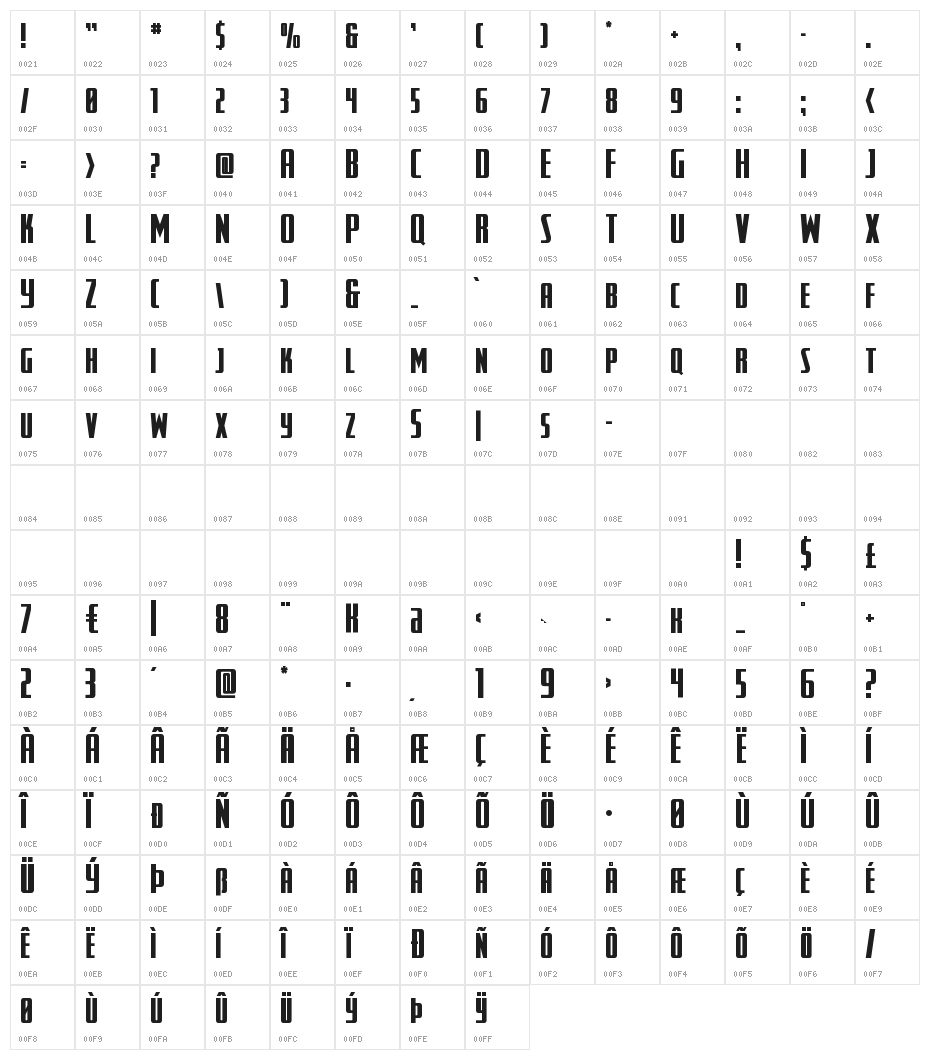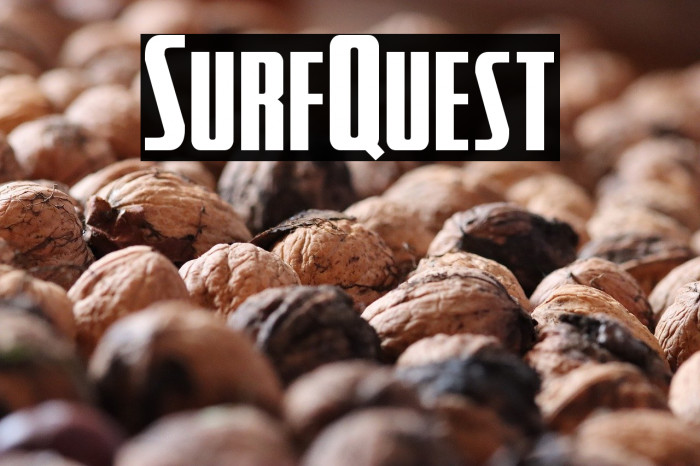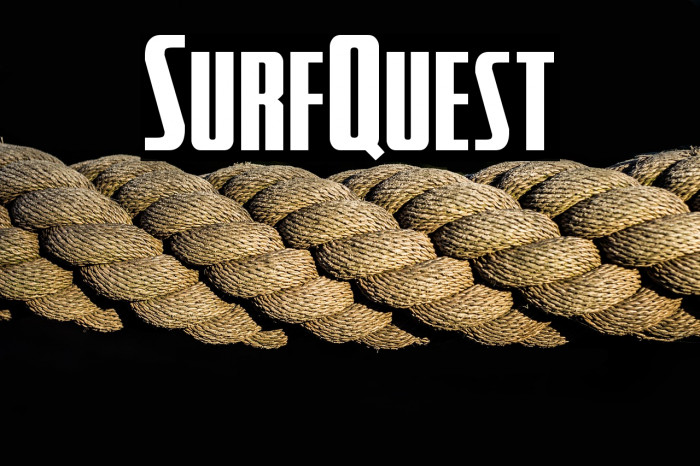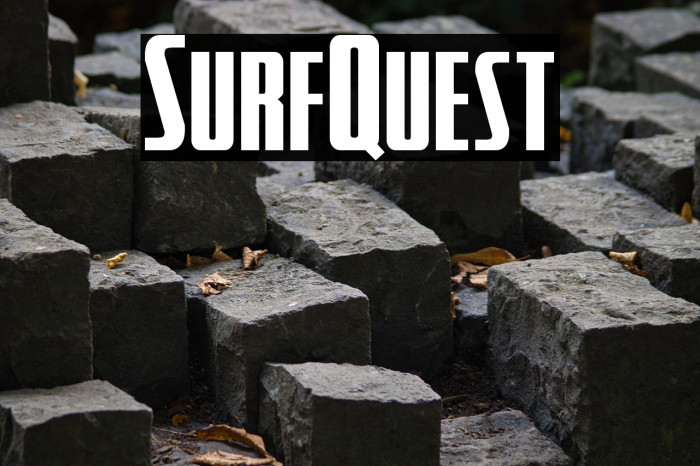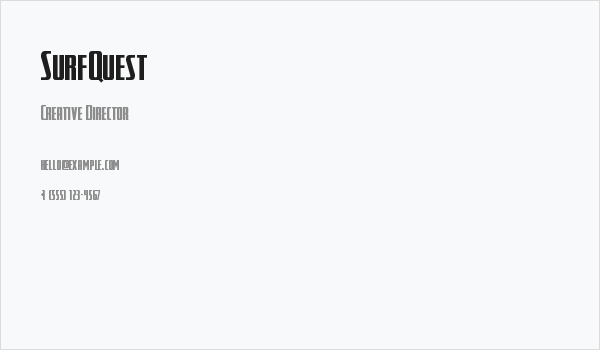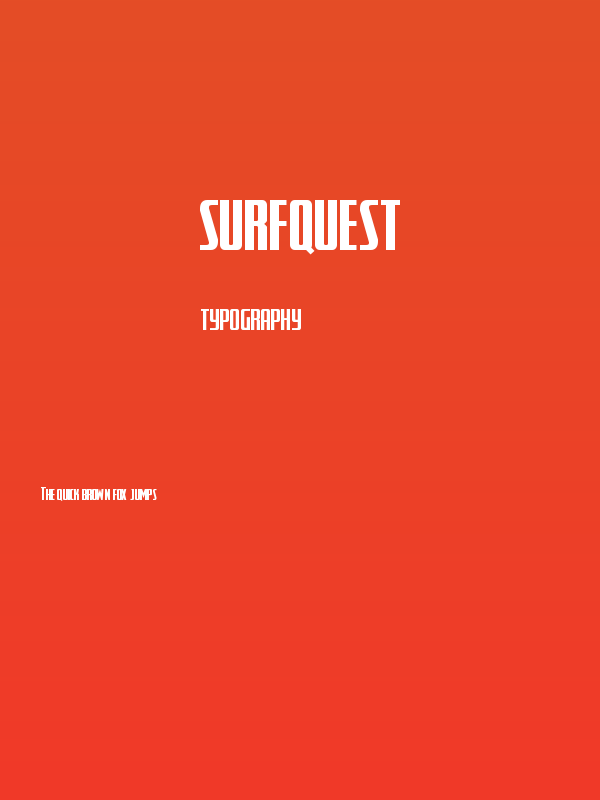
SurfQuest Font
SurfQuest Description
This font features a bold and impactful design with strong geometric shapes and a condensed form. The characters are tall and narrow, giving a sense of strength and modernity. The uppercase letters are particularly striking, with sharp angles and clean lines that create a dynamic visual appeal. The numbers and special characters maintain this bold aesthetic, ensuring consistency across all glyphs. This font is well-suited for attention-grabbing headlines and titles, where a strong visual presence is desired. Its distinct style makes it an excellent choice for branding, posters, and other creative projects that require a modern and assertive typeface.
| Proposed Projects | Ideal for branding, posters, headlines, and creative projects requiring a modern, assertive typeface. |